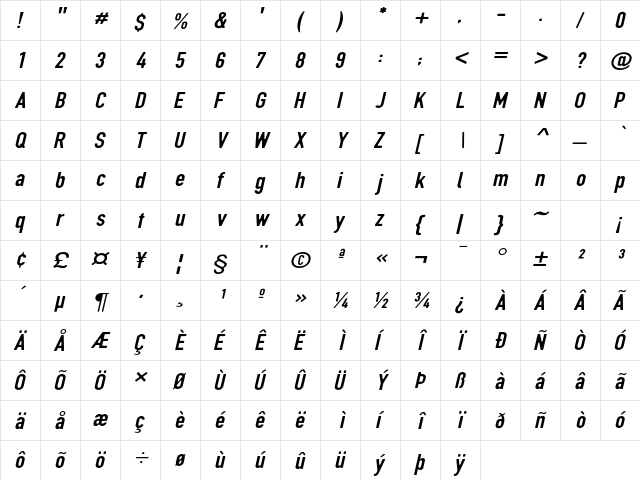
DIN Rundschrift MittelKursiv
Design Context for DIN Rundschrift Typeface
DIN Rundschrift takes a measured approach to typography — its balanced proportions and neutral character make it a reliable workhorse for both digital and print work. Its italic angle brings a sense of urgency and motion to the letterforms.
Pro Tip: Use DIN Rundschrift for emphasis, pull quotes, and subheadings where its slanted energy can add rhythm to the layout.